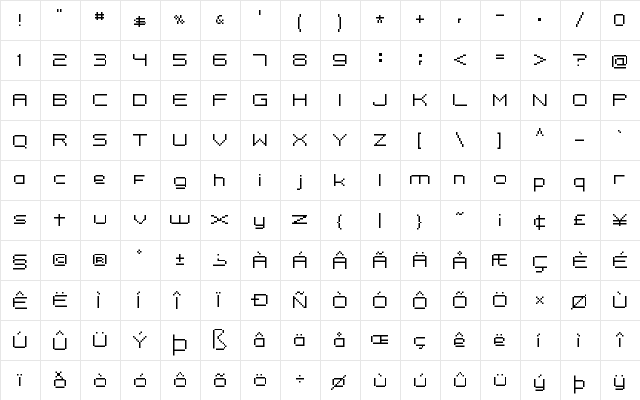
Ratchet & Clank PSP Regular
| Designer | fs10inator |
Design Context for Ratchet & Clank PSP Typeface
Ratchet & Clank PSP takes a measured approach to typography — its balanced proportions and neutral character make it a reliable workhorse for both digital and print work.